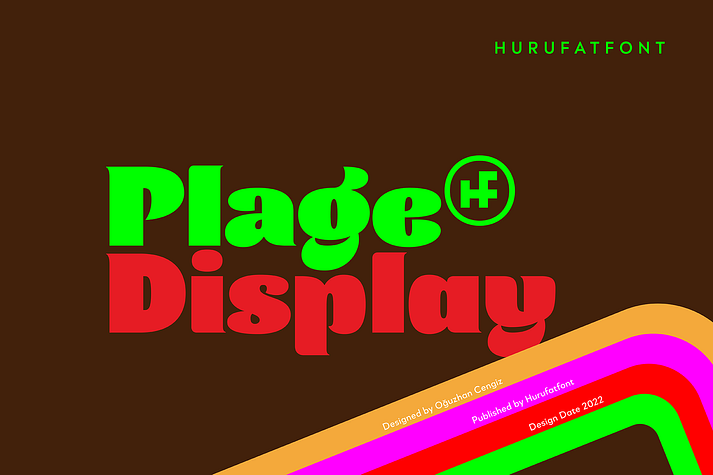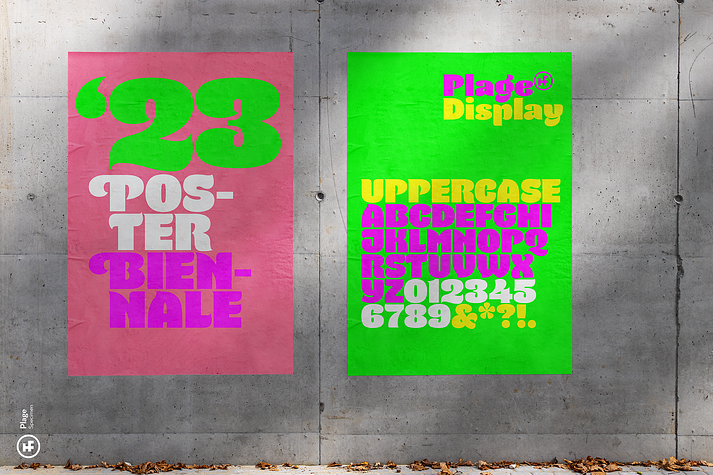
Plage
Plage is a display font family published by Hurufatfont Type Foundry.
PLAGE DISPLAY
Plage draws inspiration from the fluid and organic typography of the ‘60s and ‘70s. Ideal for branding, poster and packaging designs. Equipped with rich ligature and opentype features for professional typographic designs. Diacritical marks in line form, which was widely used by graphic designers in Turkey at that time, were added as a style set (ss02).